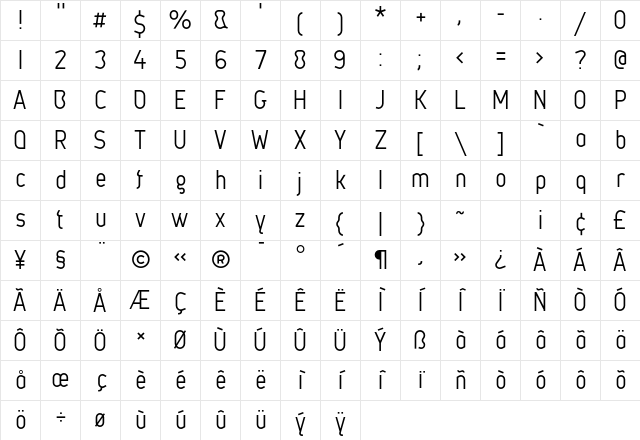
Metsys Light
Metsys Light Family
Design Context for Metsys
Metsys is a composed and adaptable typeface that performs quietly and consistently across a wide range of design contexts. Its slender proportions lend an understated elegance to any composition.